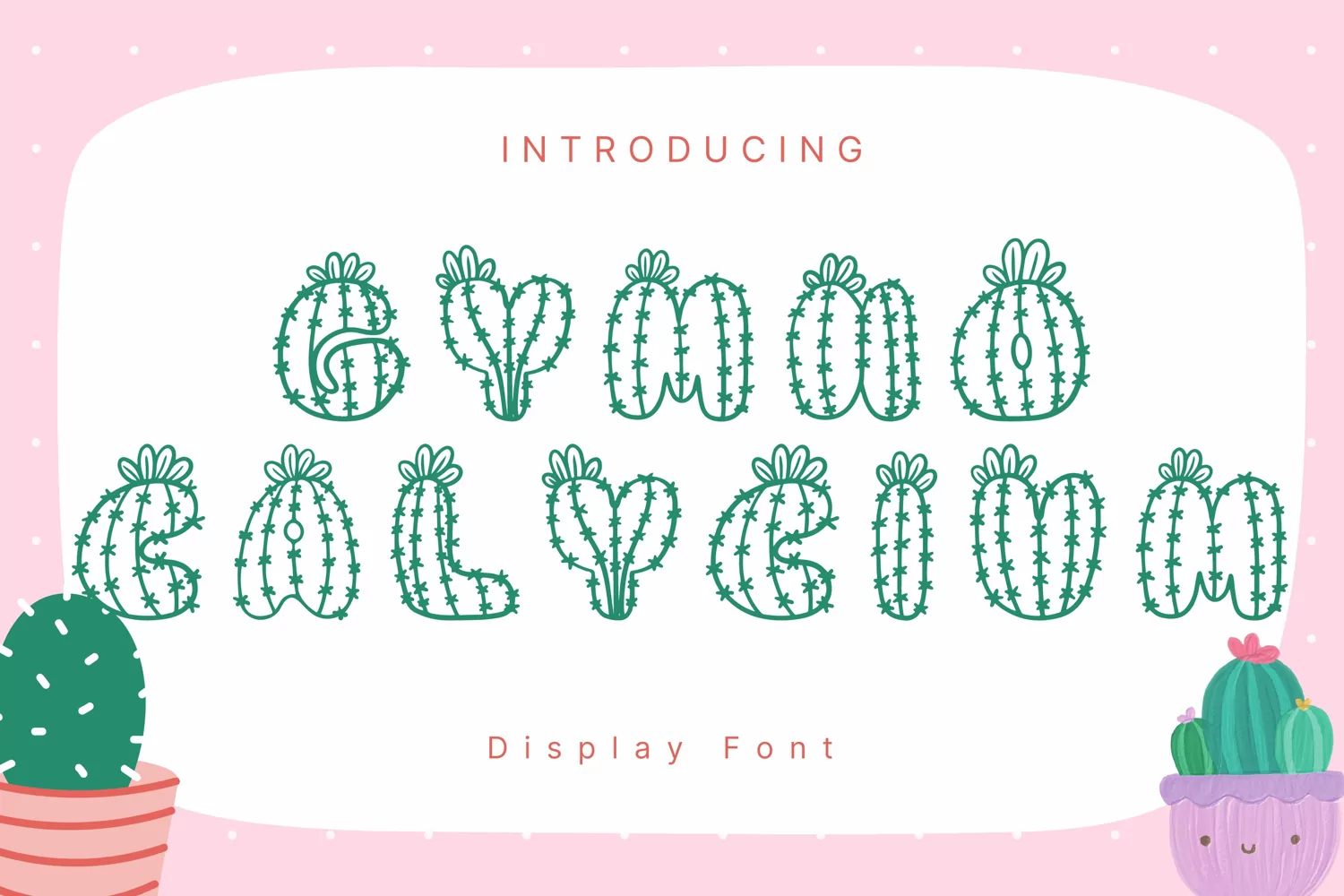
Gymno Calycium Style
GymnoCalycium
Gymno Calycium Style is a whimsical and clean handwritten font. It can easily be matched to an incredibly large set of projects, so add it to your creative ideas and notice how it makes them stand out!